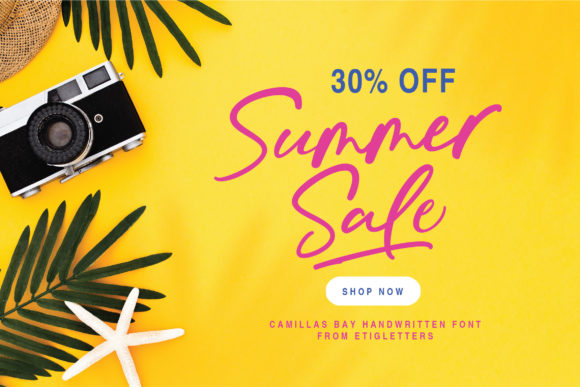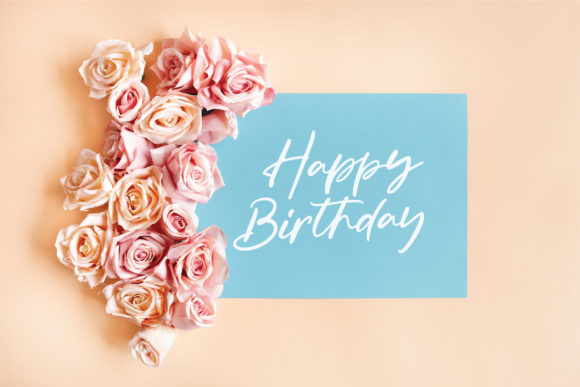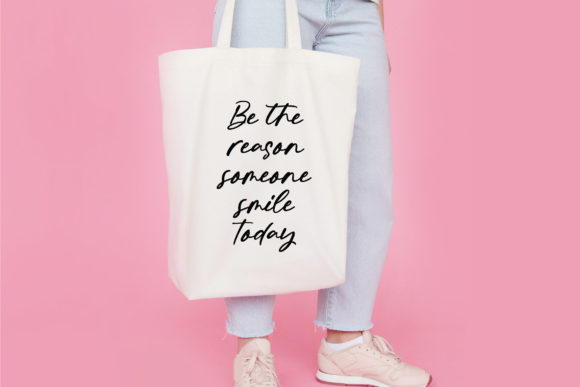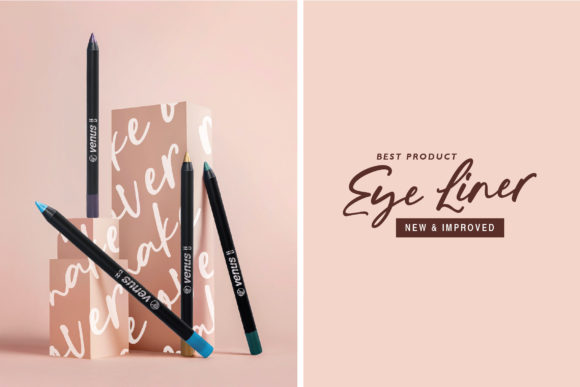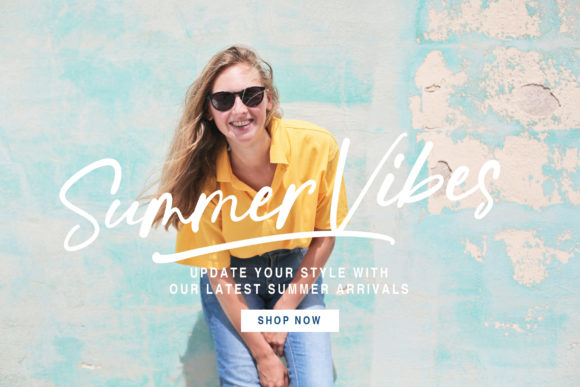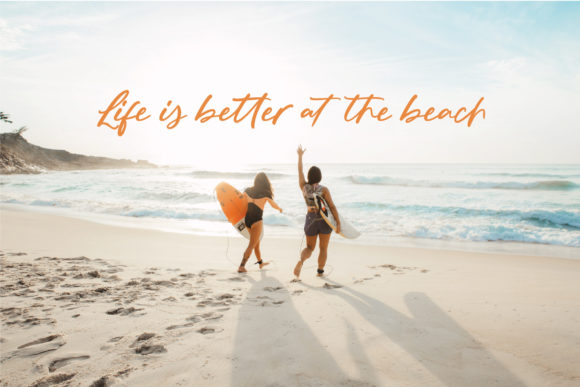
Introducing Camillas Bay Font: Elevate Your Designs with Elegance and Sophistication
In the world of typography, fonts play a crucial role in conveying the tone and personality of a brand or design. For designers and crafters seeking a stylish and relaxed script font, Camillas Bay is an excellent choice. This beautiful font is characterized by smooth curves, making it perfect for fashion branding, editorial designs, and various other creative projects.
The Characteristics of Camillas Bay Font
Camillas Bay Font is a script font that exudes elegance and sophistication. Its defining features include:
- Smooth Curves: The font’s smooth curves give it a fluid and natural look, making it perfect for designs that require a touch of elegance.
- Relaxed and Stylish: Camillas Bay has a relaxed yet stylish vibe, making it suitable for a wide range of design applications, from fashion branding to editorial designs.
- High Versatility: This font can be used in various design contexts, including logos, titles, headings, and body text.
Perfect for Fashion Branding and Editorial Designs
Camillas Bay Font is particularly well-suited for fashion branding and editorial designs. Its elegant and sophisticated look makes it perfect for:
- Fashion Logos and Labels: Create stunning logos and labels for your fashion brand that convey luxury and sophistication.
- Editorial Designs: Use Camillas Bay Font to add a touch of elegance to your editorial designs, such as magazine covers, articles, and advertisements.
- Packaging Designs: Elevate your packaging designs with Camillas Bay Font, making your products stand out on store shelves.
Why Choose Camillas Bay Font?
With so many fonts available, why choose Camillas Bay Font? Here are just a few reasons:
- Unique and Distinctive: Camillas Bay Font has a unique and distinctive look that sets it apart from other fonts.
- Elegant and Sophisticated: The font’s elegant and sophisticated look makes it perfect for designs that require a touch of luxury.
- Easy to Read: Despite its elegant look, Camillas Bay Font is easy to read, making it suitable for body text and other long-form content.
Tips for Using Camillas Bay Font
To get the most out of Camillas Bay Font, here are a few tips:
- Use it as a Headline Font: Use Camillas Bay Font as a headline font to add a touch of elegance to your designs.
- Pair it with Other Fonts: Pair Camillas Bay Font with other fonts to create a unique and visually appealing typography combination.
In conclusion, Camillas Bay Font is a beautiful and elegant script font that is perfect for fashion branding, editorial designs, and various other creative projects. Its smooth curves, relaxed and stylish vibe, and high versatility make it an excellent choice for designers and crafters seeking a sophisticated font. With its unique and distinctive look, elegant and sophisticated style, and ease of readability, Camillas Bay Font is sure to elevate your designs to the next level.